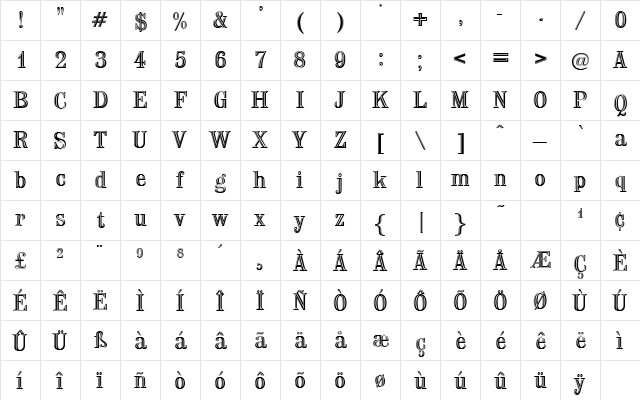
Chichester Regular
Design Context for Chichester Typeface
Chichester takes a measured approach to typography — its balanced proportions and neutral character make it a reliable workhorse for both digital and print work.